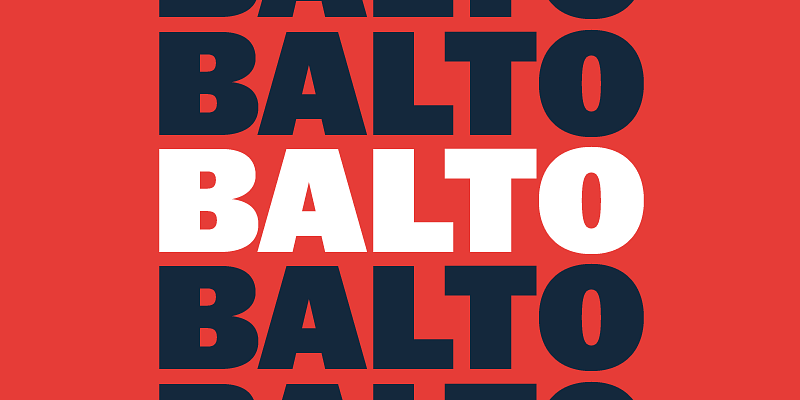
Balto Font Free Download is a stylish and modern sans-serif typeface that features clean lines and a geometric design, offering a contemporary look that is both versatile and professional. With its balanced proportions and simple yet elegant structure, Balto is perfect for a wide range of applications, including branding, websites, editorial design, and print materials.
Its smooth and legible design makes it suitable for both headlines and body text, allowing for consistent readability across different media. Whether you're designing for corporate clients or working on creative projects, Balto brings a sleek and modern touch to your work.